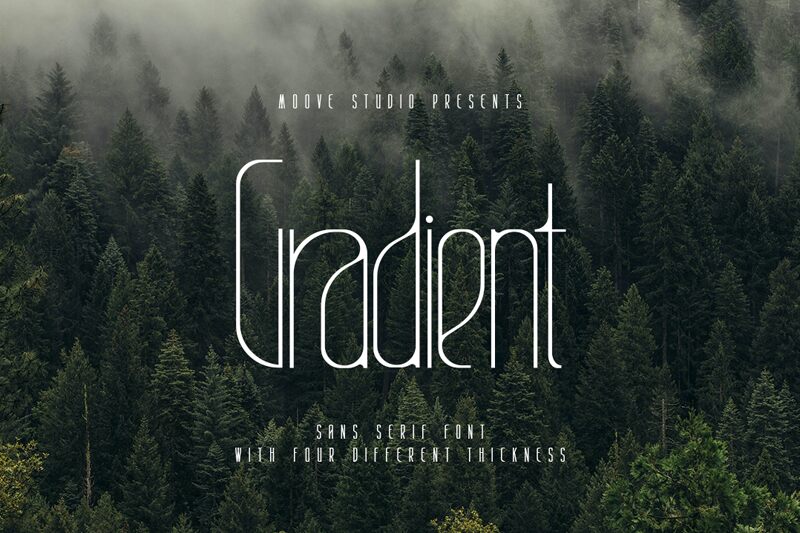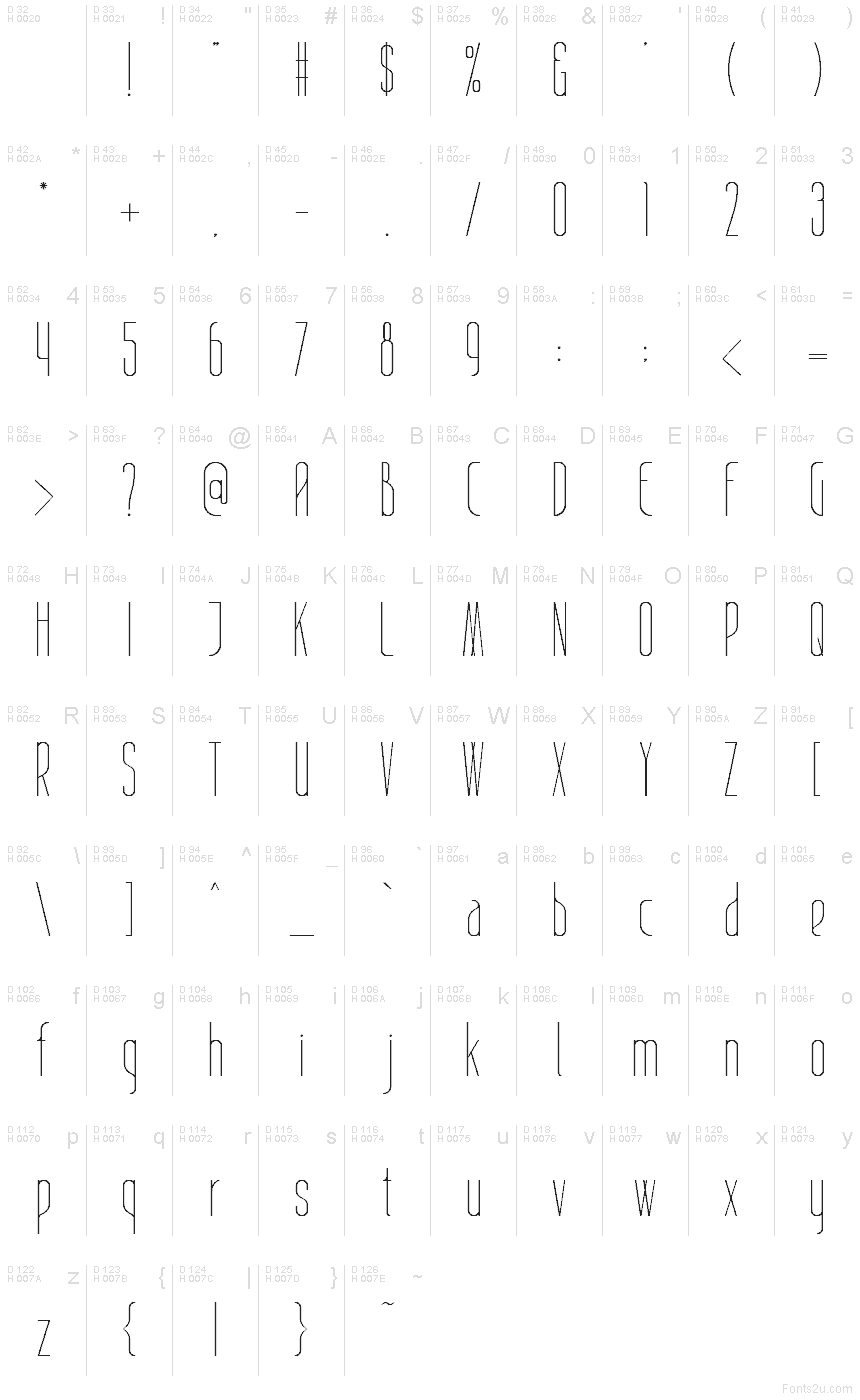
Gradient
Gradient font by Moove Studio is a free ultra‑condensed sans serif typeface that solves the “too much text, not enough space” problem with style. Its hairline strokes, sky‑tall proportions, and smooth, looping curves let long words glide into tight layouts without feeling cramped. The letters feel airy yet assured, with slender verticals that read crisp and modern at headline sizes.
Using Gradient, you can craft fashion branding, editorial headers, cosmetic packaging, event posters, album art, and sleek social graphics that need elegance without bulk. The rhythm is narrow and consistent, so compositions stay tidy and vertical. Set it large for clarity, and pair this free font with a sturdy grotesk for body copy to keep the message grounded.